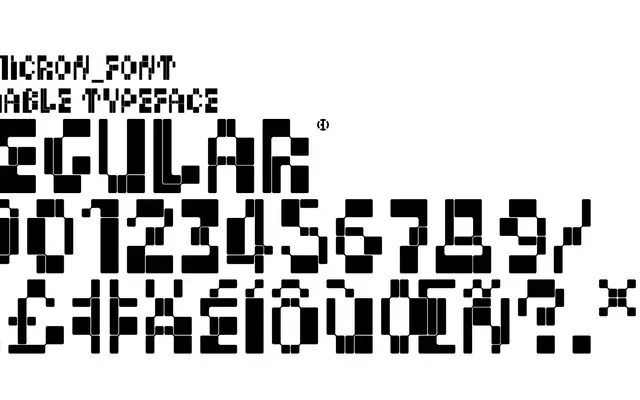
BD MicronFont
Type Different · 2019
A modular, technology-inspired display typeface created for the TechnoCulture 2 festival in Fribourg in 2019, offered as a variable font across five width variants.
Originally commissioned as the visual identity typeface for TechnoCulture 2, a festival in Fribourg, Switzerland, BD MicronFont is built from geometric shapes that suggest circuitry and robotics. The variable font axis spans five named widths from Condensed to Extended, and the same glyph shapes were repurposed to construct a companion set of illustrated robot characters. Latin script coverage extends to Western and Northern European languages.
Constructed from modular, geometric shapes evoking circuit boards and pixel grids; designed explicitly as a display typeface with a technological and playful aesthetic rather than for body text use.